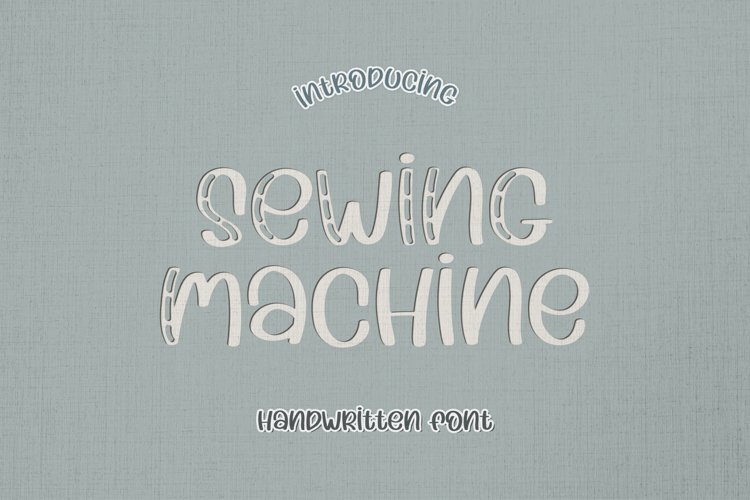
The Sewing Machine is a stitchy & playful handwritten font. Get inspired by its incredibly patterned feel. Use this font to turn any design project into a standout!
This is an ALL CAPS font with and without stitches. It offers support for all characters of the English language. Numbers and standard punctuation glyphs are included.
Sewing Machine is perfectly suited for Quotes, Branding, Logos, Greeting Cards, Invitations, Stationery Design, Children's designs, T-shirts, Packaging designs, Poster, Typographic designs, Papercrafts, Digital crafts, and so much more!